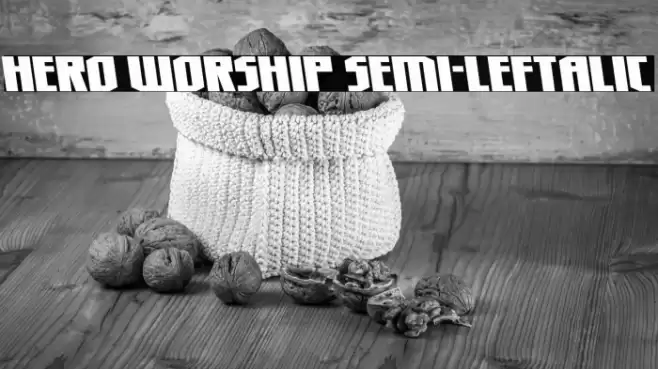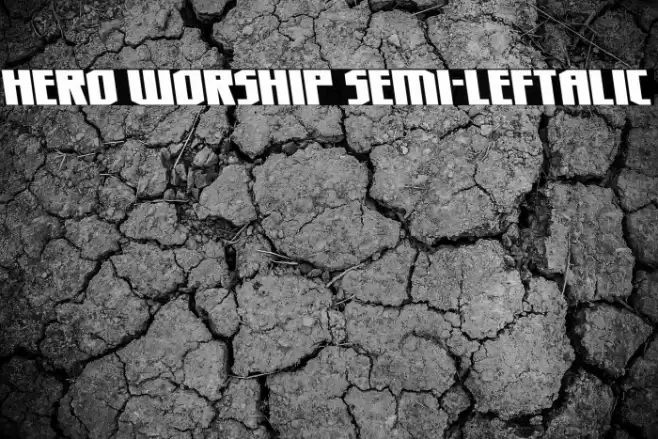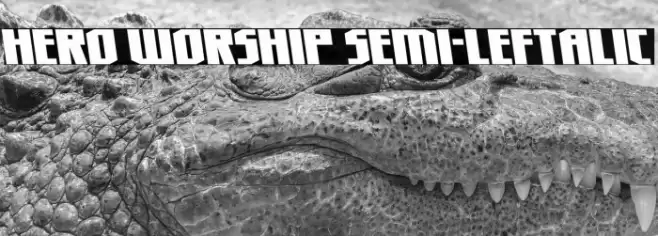
Hero Worship Semi-Leftalic Font
Hero Worship Semi-Leftalic Description
This font features a bold and angular design with a distinct geometric style. The characters are sharply defined with a blocky appearance, giving them a strong and impactful presence. The uppercase and lowercase letters maintain a consistent width, creating a uniform look across the text. The numbers and special characters follow the same design principles, ensuring cohesion throughout. The font's unique style makes it suitable for attention-grabbing headlines and titles, where a modern and assertive look is desired.
Bold, angular, and geometric font with a strong presence from Uncategorized fonts.
- Proposed Projects: Ideal for posters, logos, video game titles, and branding materials that require a modern and bold aesthetic.